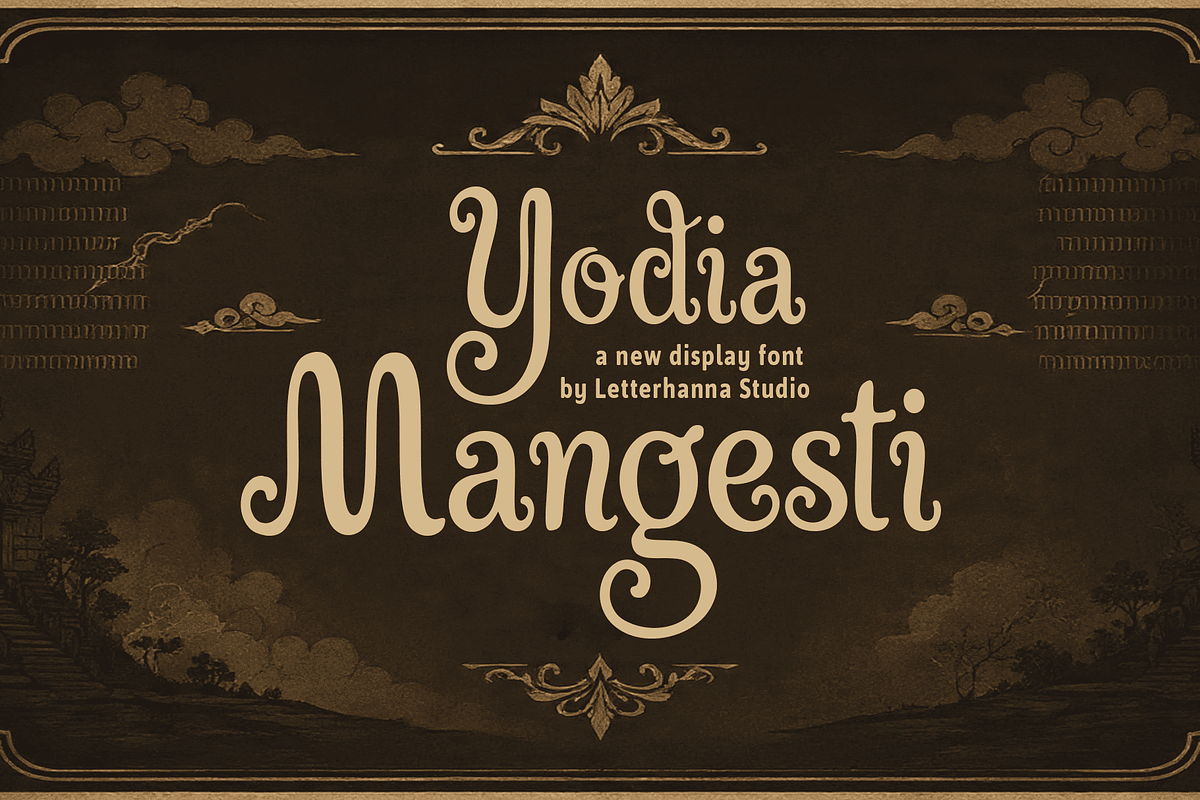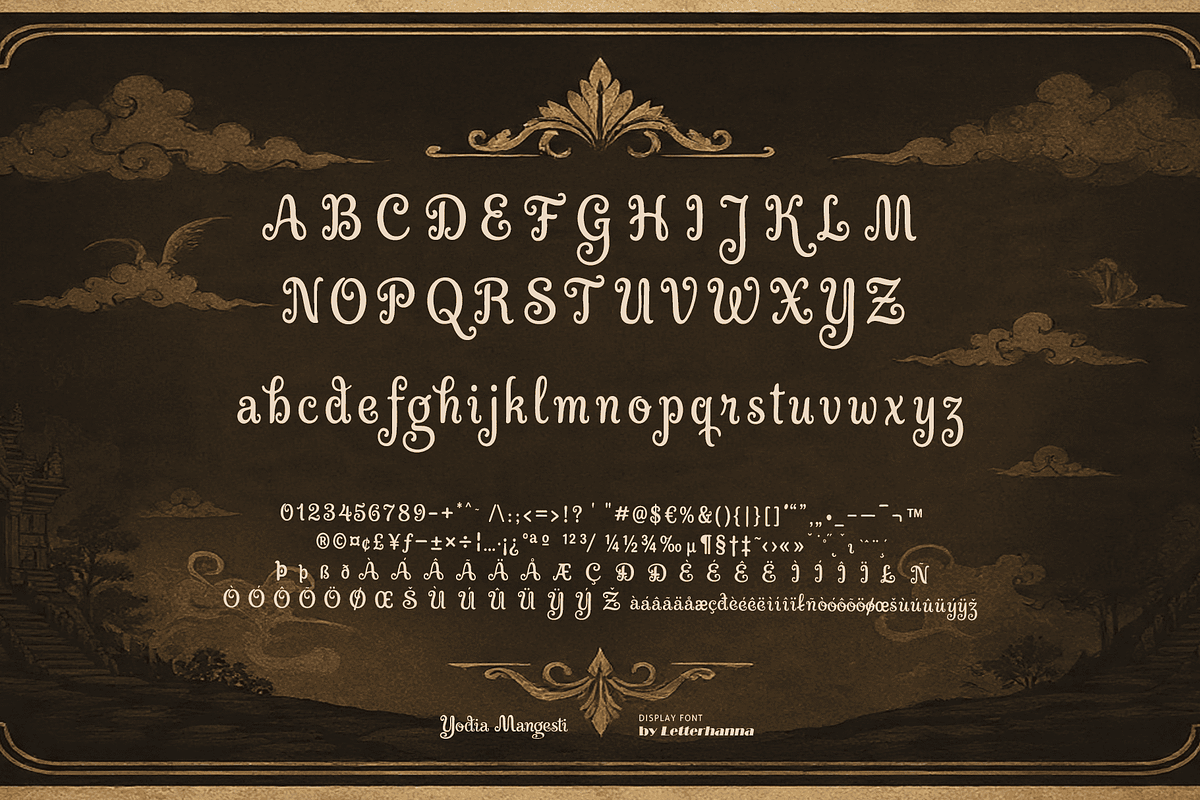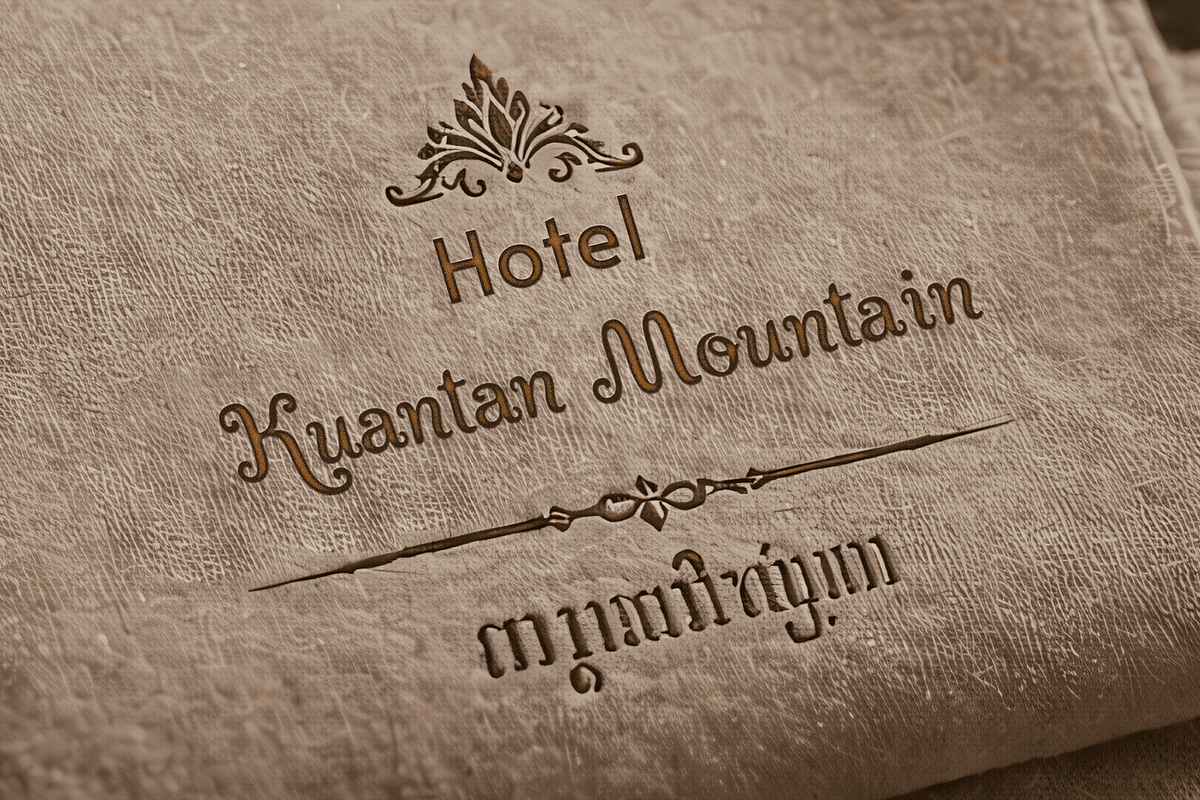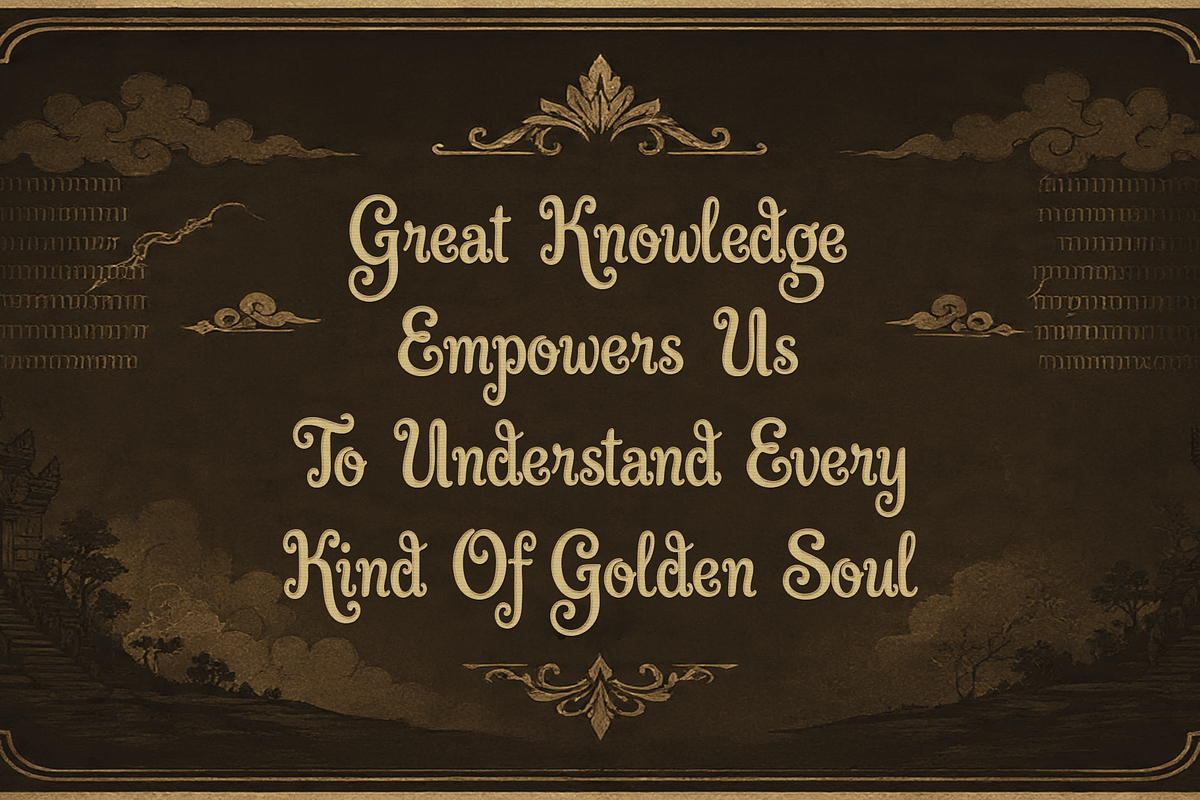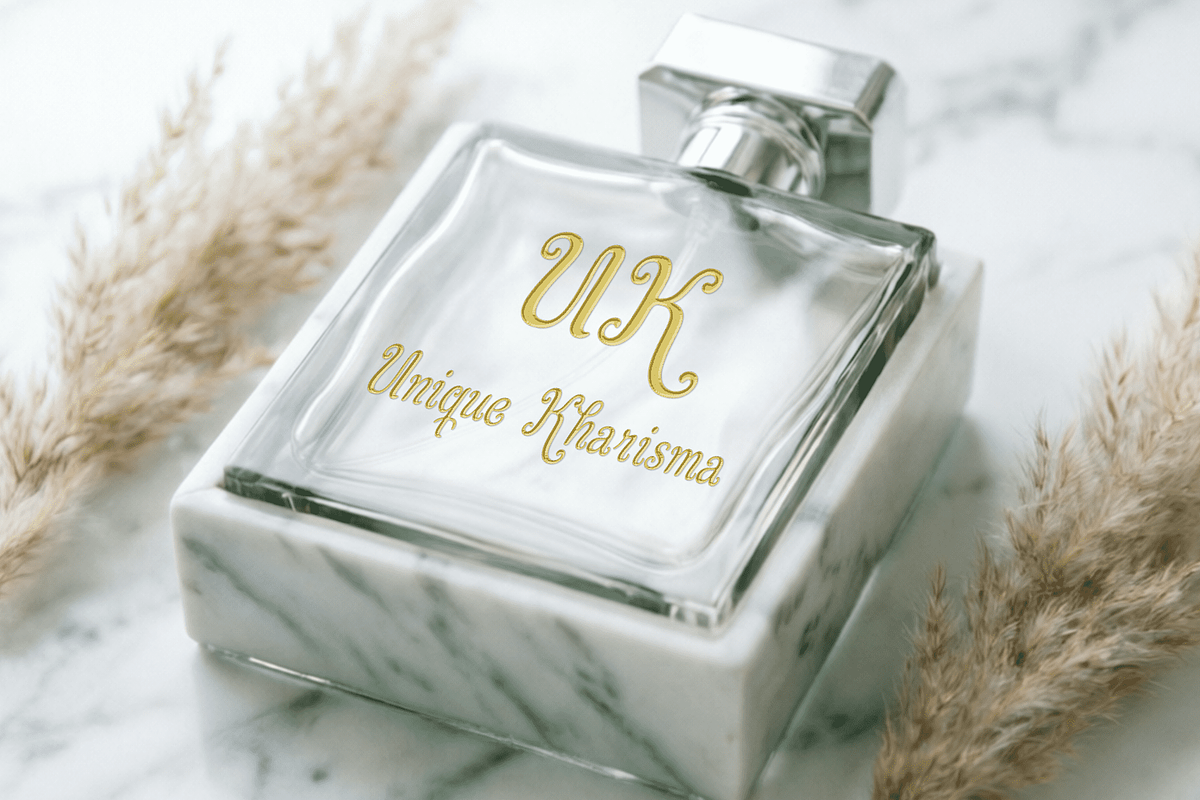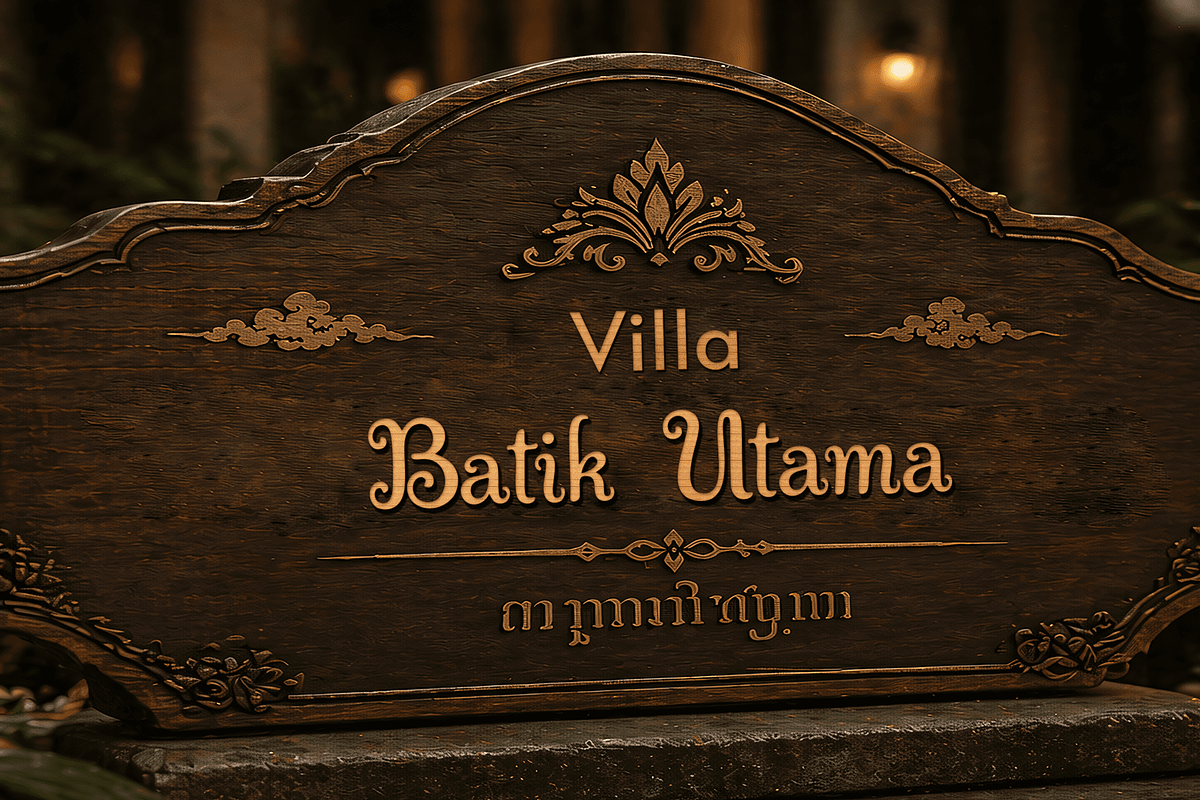
Yodia Mangesti Font
Introducing Yodia Mangesti — a bold, ornate display font inspired by the flowing curves and graceful strokes of Javanese script (Aksara Jawa), one of Southeast Asia's most revered traditional writing systems.
The name itself carries meaning: "Yodia" evokes a warrior's spirit, while "Mangesti" speaks of steadfast resolve — together, a name that stands as bold as the letters it bears. Drawing from the rhythmic elegance of traditional Javanese letterforms, Yodia Mangesti transforms centuries of cultural artistry into a modern blackletter serif.
Each character is crafted with deliberate weight and ornate detail — echoing the chisel-cut strokes of ancient manuscripts while remaining fully at home in contemporary design. The result is a font that feels both deeply rooted and strikingly relevant. Yodia Mangesti is built for designers who want more than just a typeface — they want a story.
Whether you're crafting a premium brand identity, designing editorial headlines, building a logo that commands attention, or creating merchandise that speaks with cultural depth, this font delivers authority with artistry. Ideal for: logos & brand identity, book covers & editorial headers, apparel & merchandise, luxury packaging, music & album artwork, poster design, wedding stationery, tattoo lettering, and any project that demands a powerful typographic presence.